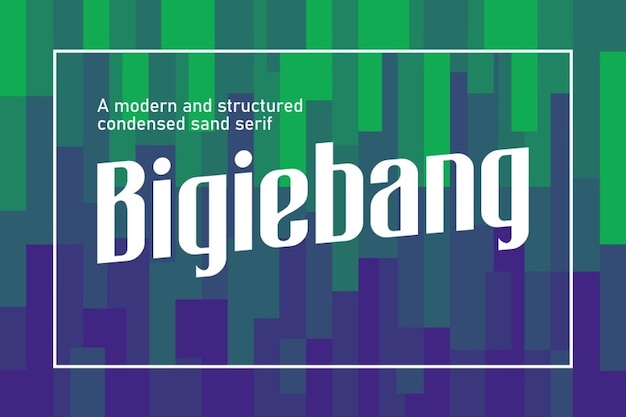
Bigiebang
Bigiebang Font
The font that's a modern explosion of style and elegance. Its design captures sleek lines and contemporary charm, making it ideal for projects seeking a blend of modernity and flair. Let "Bigiebang" elevate your creations with a sense of chic refinement.